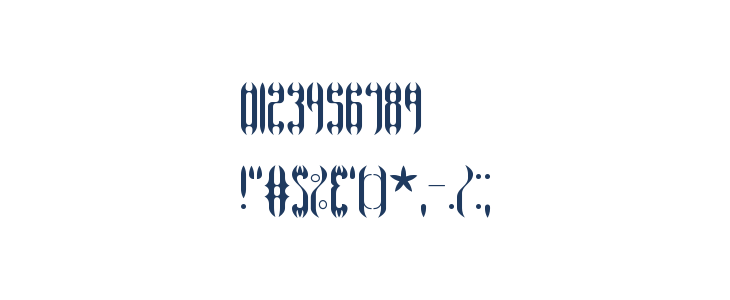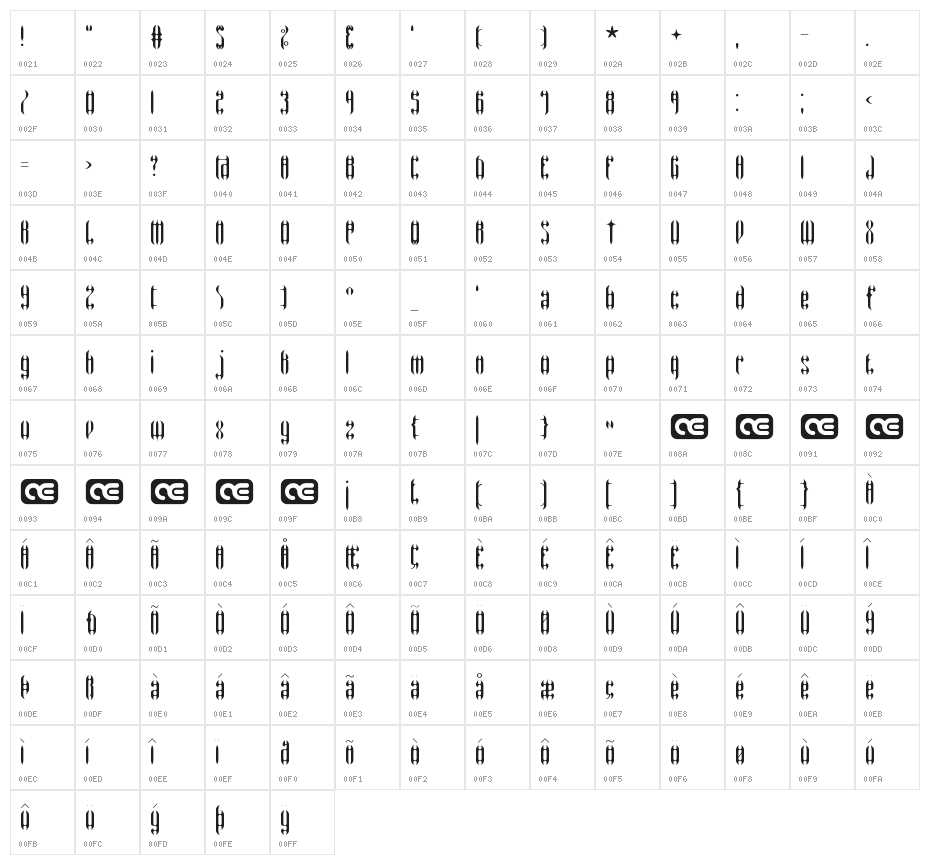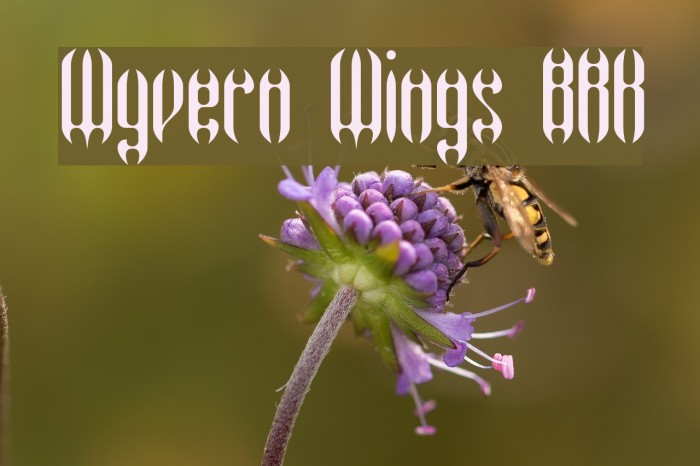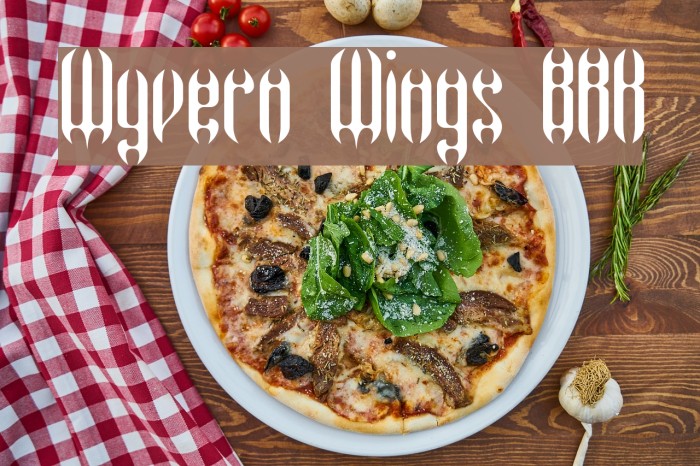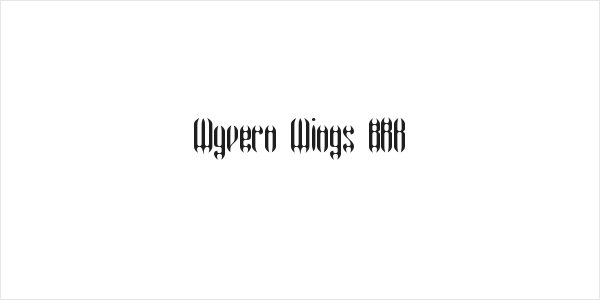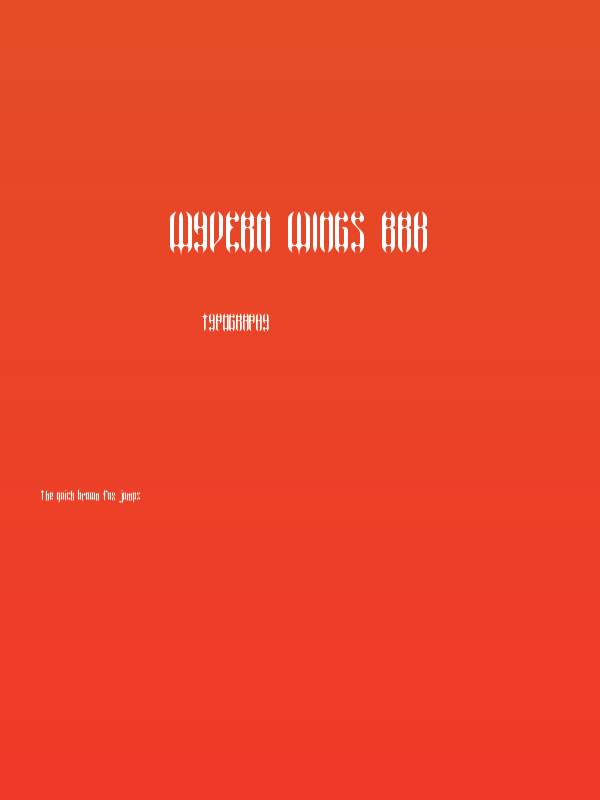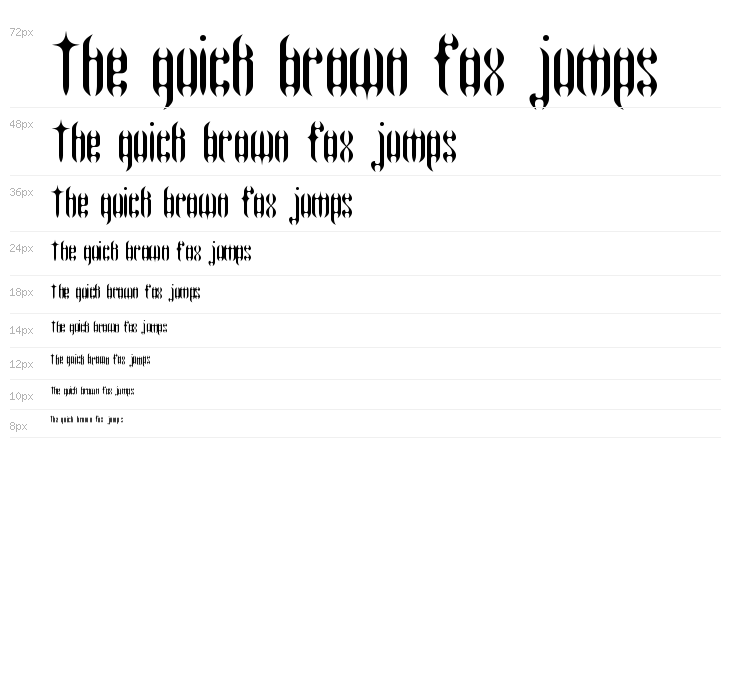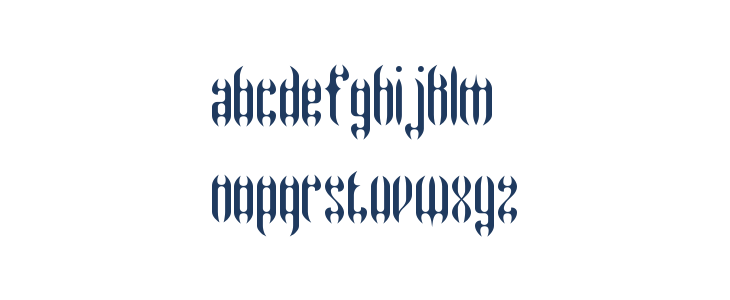
Wyvern Wings BRK Font
Wyvern Wings BRK Description
This font features a bold and dramatic style with sharp, angular edges and a gothic influence. The characters are tall and narrow, with pointed serifs that give a sense of medieval or fantasy aesthetics. The uppercase and lowercase letters maintain a consistent height, creating a uniform appearance. The numbers and special characters follow the same stylistic cues, ensuring a cohesive look across all glyphs. This font's unique design makes it stand out, suitable for projects that require a distinctive and eye-catching typeface.
| Proposed Projects | Ideal for fantasy-themed designs, book covers, posters, and branding that requires a dramatic flair. |